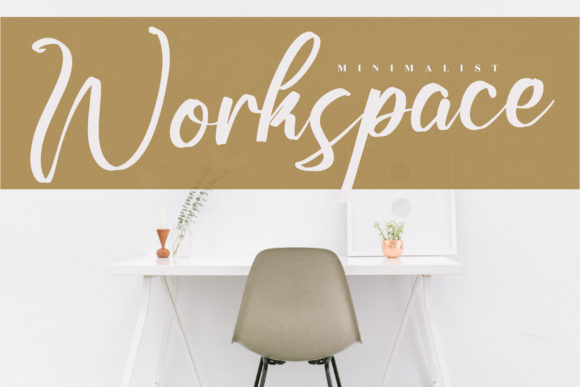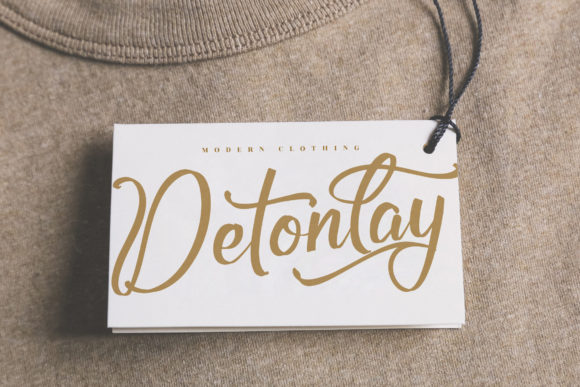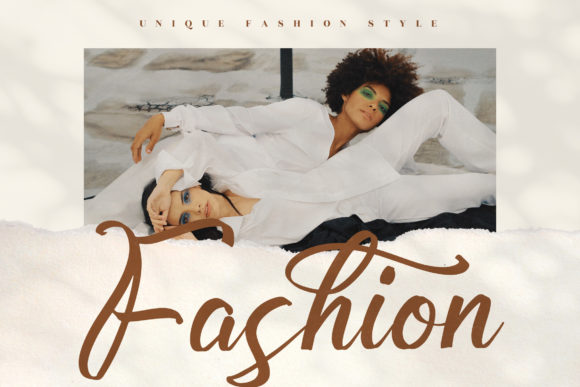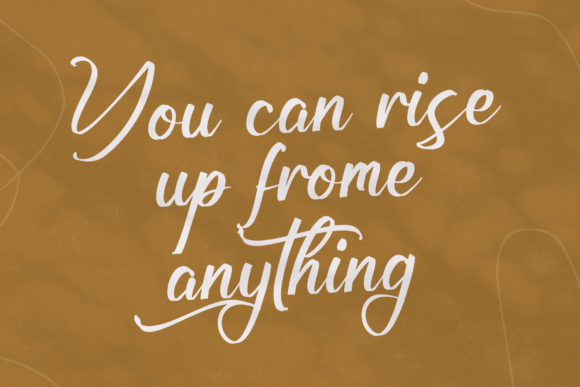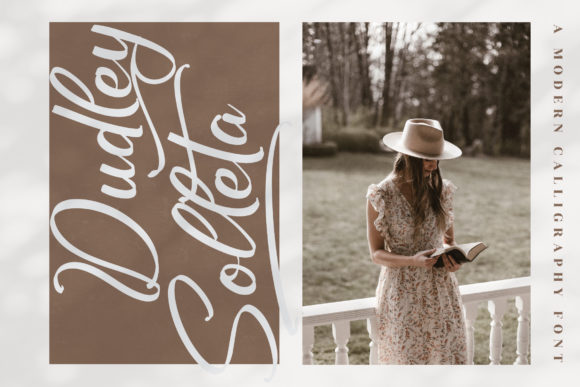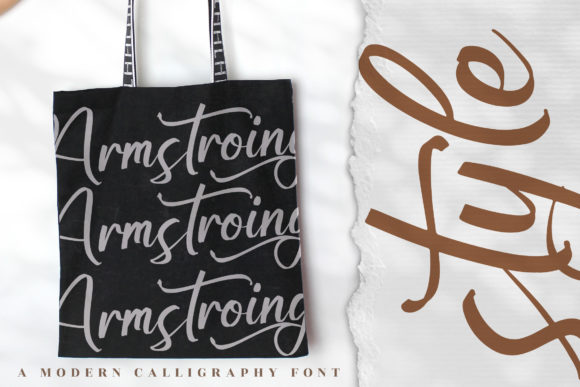
Introducing Armstroing Font: Elevate Your Designs with Elegance and Class
Are you tired of using generic fonts that fail to make your designs stand out? Look no further than Armstroing Font, a sweet and subtle handwritten font that is crafted with great care for maximum results. This beautiful font is designed to add elegance and class to any of your design projects, making it perfect for designers and crafters who want to take their work to the next level.
What Makes Armstroing Font Special?
Armstroing Font is more than just a pretty face. This font is carefully crafted with attention to detail, ensuring that every letter and swash is perfect for use in a variety of design projects. Whether you’re working on a logo, branding materials, or marketing collateral, Armstroing Font is the perfect choice for adding a touch of sophistication and style.
One of the standout features of Armstroing Font is its PUA (Private Use Area) encoding. This means that you can access all of the glyphs and swashes with ease, giving you maximum flexibility and creative control over your designs. With PUA encoding, you can easily insert special characters and swashes into your text, making it easy to create beautiful and unique designs.
Armstroing Font is versatile and can be used in a wide range of design projects, including:
- Logos and branding materials: Add a touch of elegance and sophistication to your logo and branding materials with Armstroing Font.
- Marketing collateral: Use Armstroing Font to create eye-catching marketing materials, such as brochures, flyers, and posters.
- Wedding and event designs: Armstroing Font is perfect for creating beautiful wedding invitations, programs, and other event materials.
- Stationery and paper crafts: Add a touch of class to your stationery and paper crafts with Armstroing Font.
Why Choose Armstroing Font?
There are many fonts on the market that claim to be elegant and sophisticated, but Armstroing Font stands out from the crowd. Here are just a few reasons why:
- Unique and subtle design: Armstroing Font has a unique and subtle design that is sure to make your designs stand out.
- High-quality craftsmanship: This font is carefully crafted with attention to detail, ensuring that every letter and swash is perfect for use in your designs.
- PUA encoding: With PUA encoding, you can easily access all of the glyphs and swashes, giving you maximum flexibility and creative control over your designs.
- Versatile: Armstroing Font can be used in a wide range of design projects, making it a great addition to any designer’s toolkit.
Tips for Using Armstroing Font
Here are a few tips for getting the most out of Armstroing Font:
- Use it sparingly: Armstroing Font is a statement font, so use it sparingly to add emphasis and elegance to your designs.
- Experiment with different sizes and colors: Don’t be afraid to experiment with different sizes and colors to find the perfect look for your design.
- Pair it with other fonts: Armstroing Font pairs well with a variety of other fonts, so don’t be afraid to get creative and try out different combinations.